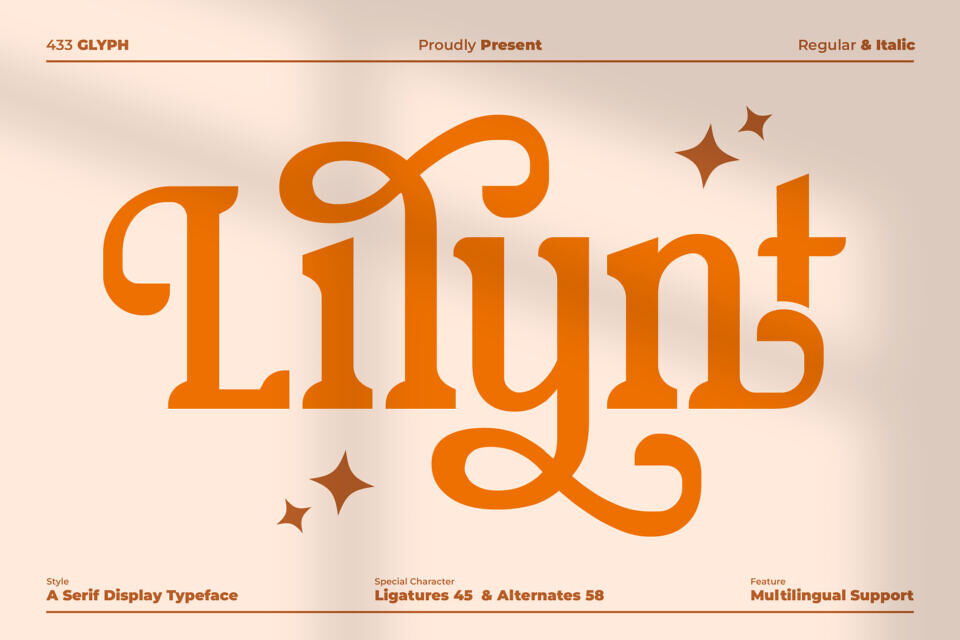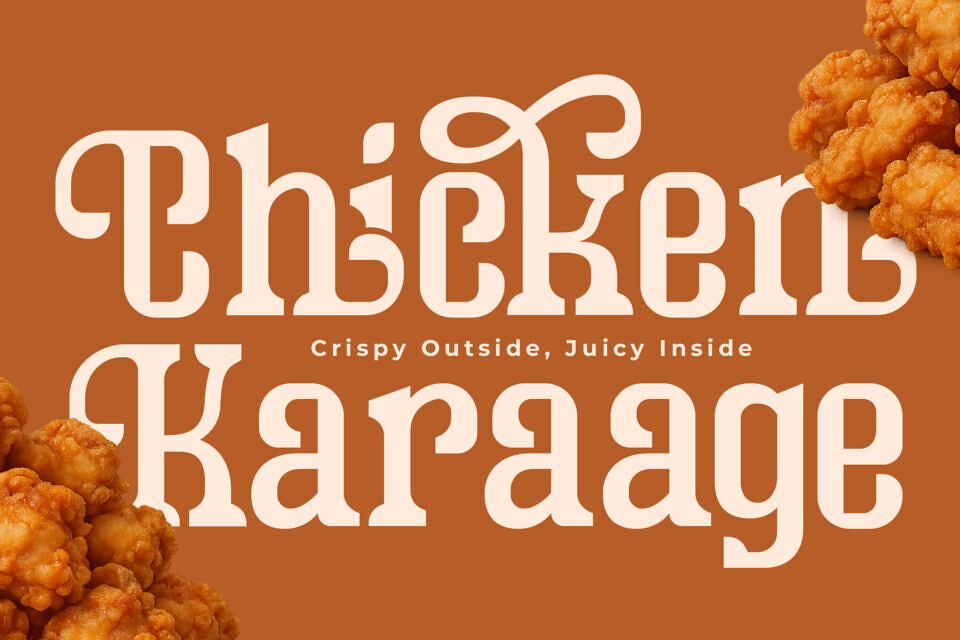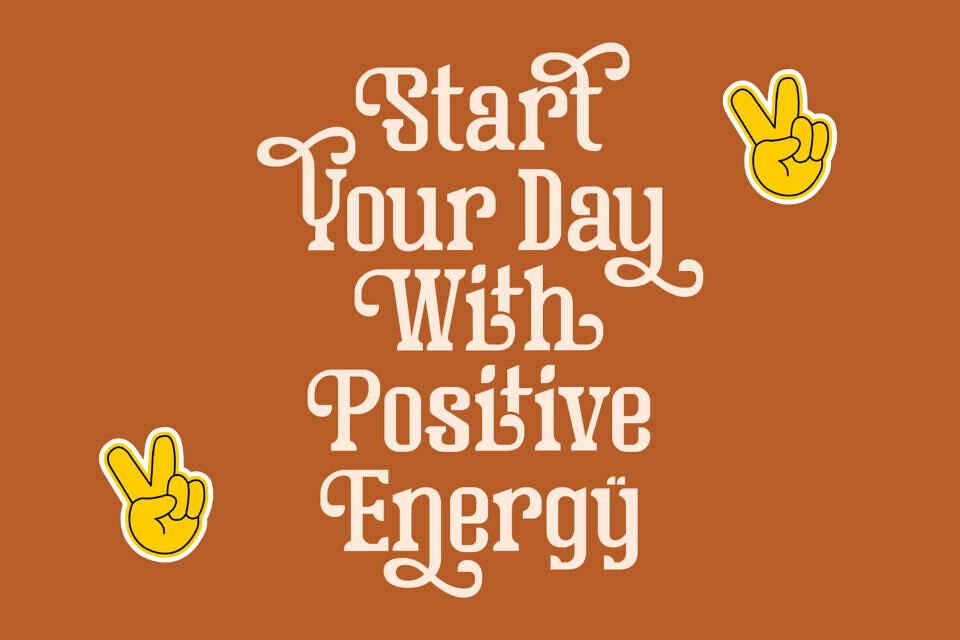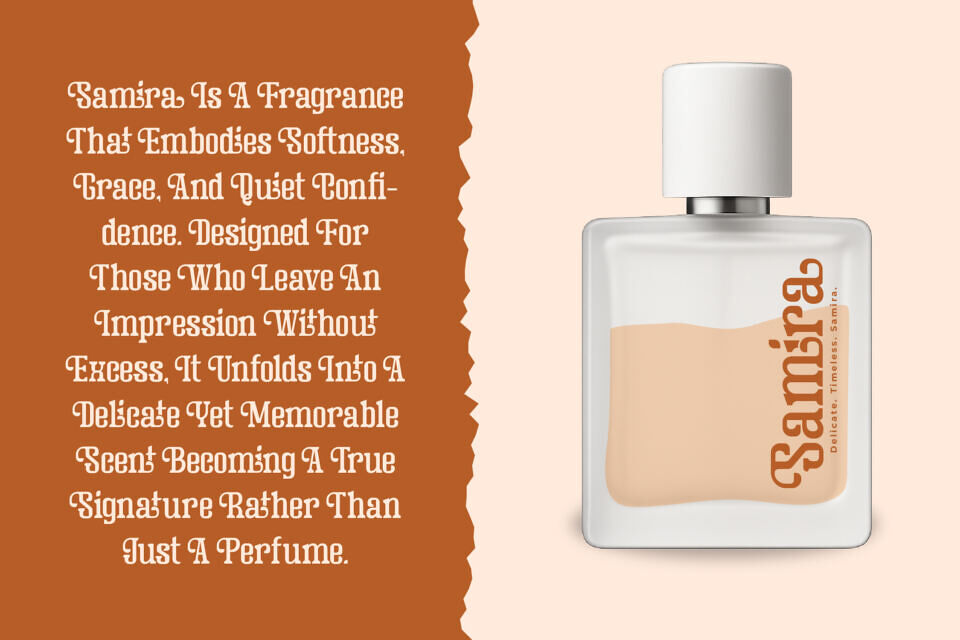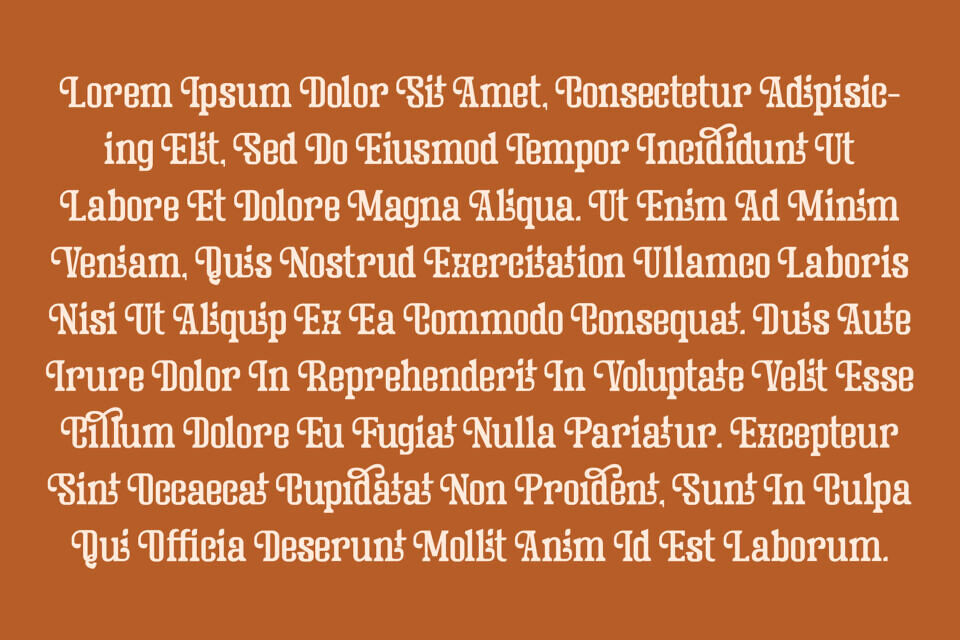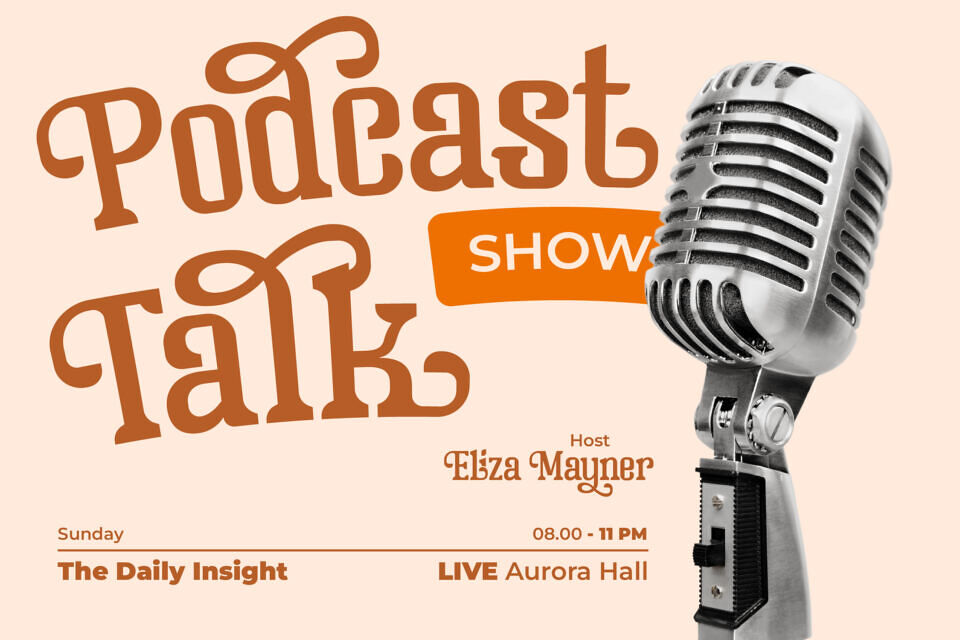
Lilynt Font
Lilynt is a serif display typeface designed to express elegance, refinement, and editorial sophistication. It features strong stroke contrast, graceful letter proportions, and carefully crafted details that enhance its luxury and modern-classic character.
Inspired by European magazines, fashion editorials, and premium branding, Lilynt is ideal for headlines, titles, logos, posters, and high-end packaging. It is not intended for long body text, but rather to command attention and establish a distinct visual identity. Perfect for: Editorial and magazine design, fashion branding, luxury logos, beauty products, posters, and premium visual identities.